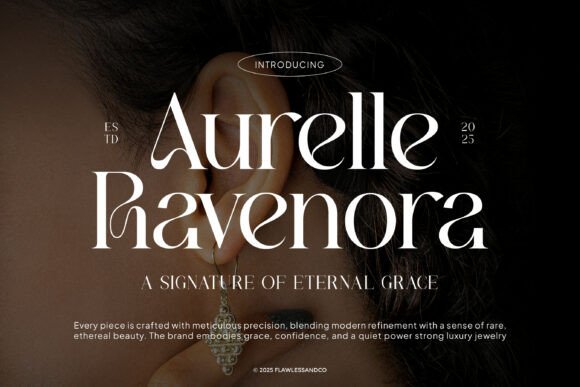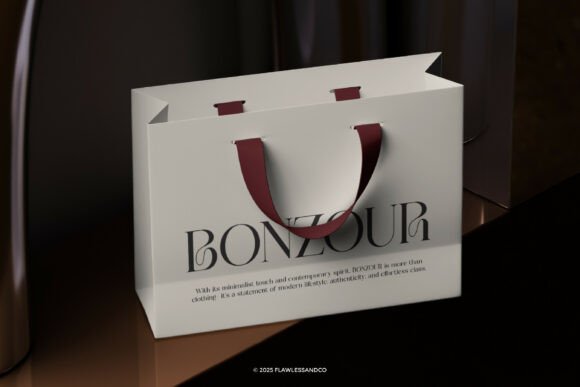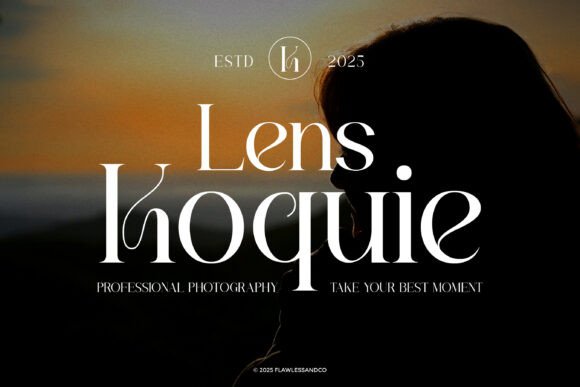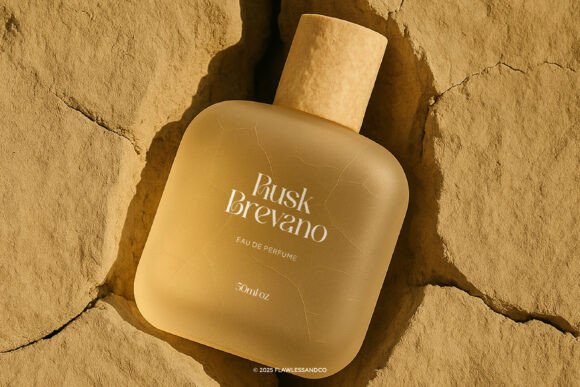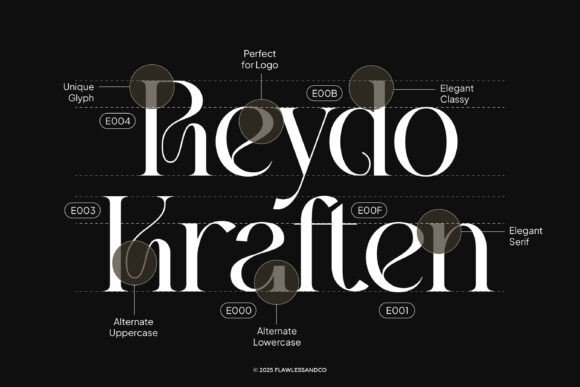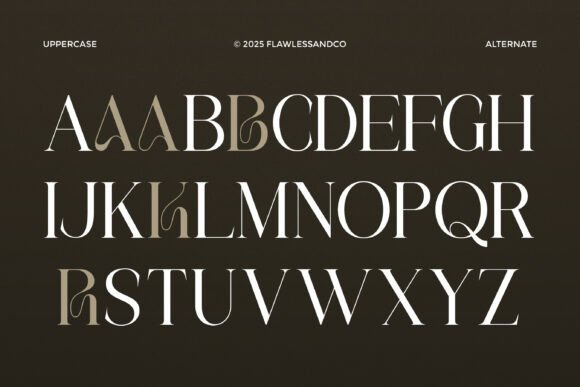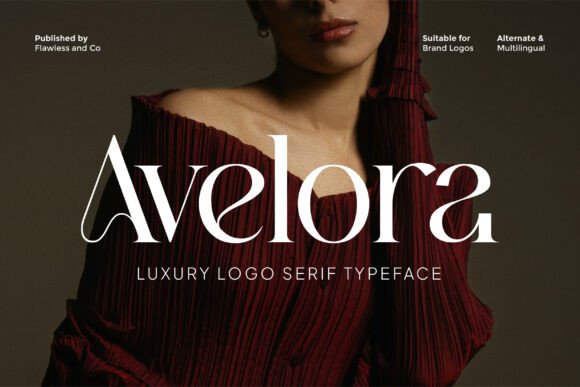
Introducing Avelora Font: Elevate Your Design with Elegance and Sophistication
In the world of typography, a font can make or break the visual identity of a brand. For designers and crafters seeking to create premium branding and elegant logo identities, Avelora Font is an exceptional choice. This refined serif typeface is specifically designed to bring a touch of sophistication and luxury to various design projects. With its graceful curves, high-contrast strokes, and modern aesthetic, Avelora is poised to elevate fashion branding, beauty products, editorial layouts, packaging, and wedding designs.
The Characteristics of Avelora Font
Avelora Font boasts a range of characteristics that set it apart from other typefaces. Its refined serif design ensures a level of elegance and poise, perfect for brands seeking to convey a sense of luxury and sophistication. The high-contrast strokes add a touch of drama and flair, while the modern luxury aesthetic ensures that the font remains contemporary and relevant.
One of the standout features of Avelora is its versatility. This font can be used across a range of design applications, from fashion branding and beauty products to editorial layouts and packaging. Whether you’re creating a logo, heading, or body text, Avelora brings a level of sophistication and elegance that is hard to match.
Use Avelora to Elevate Fashion Branding
In the world of fashion, visual identity is everything. Avelora Font provides designers with the perfect tool to create stunning branding that exudes luxury and sophistication. From high-end fashion labels to boutique clothing stores, Avelora’s refined serif design and modern aesthetic make it an ideal choice for fashion branding.
With Avelora, designers can create eye-catching logos, elegant packaging, and sophisticated advertising materials that capture the essence of their brand. Whether you’re looking to create a bold statement or a subtle impression, Avelora Font provides the perfect solution.
Bringing Beauty to Beauty Products
The beauty industry is all about aesthetics, and Avelora Font provides the perfect way to bring a touch of elegance and sophistication to beauty product branding. From skincare and cosmetics to haircare and fragrances, Avelora’s refined serif design and high-contrast strokes make it an ideal choice for beauty product packaging, labeling, and advertising.
With Avelora, designers can create stunning visual identities that capture the essence of their brand and product. Whether you’re looking to convey a sense of luxury, natural ingredients, or innovative technology, Avelora Font provides the perfect solution.
Elegant Editorial Layouts with Avelora
Avelora Font is not just limited to branding and packaging; it’s also perfect for editorial layouts. Whether you’re creating a magazine, newspaper, or online publication, Avelora’s refined serif design and modern aesthetic make it an ideal choice for headings, subheadings, and body text.
With Avelora, designers can create elegant and sophisticated editorial layouts that engage readers and convey a sense of luxury and sophistication. Whether you’re looking to create a high-end fashion magazine or a lifestyle publication, Avelora Font provides the perfect solution.
Wedding Designs and Beyond
Avelora Font is not just limited to commercial design applications; it’s also perfect for wedding designs and other personal projects. Whether you’re creating wedding invitations, stationery, or signage, Avelora’s refined serif design and elegant aesthetic make it an ideal choice.
With Avelora, designers can create stunning wedding designs that capture the essence of the special day. Whether you’re looking to convey a sense of romance, luxury, or sophistication, Avelora Font provides the perfect solution.
Author Flawless And Co
In conclusion, Avelora Font is an exceptional choice for designers and crafters seeking to create premium branding and elegant logo identities. With its refined serif design, high-contrast strokes, and modern luxury aesthetic, Avelora brings a sophisticated presence to every project. Whether you’re working on fashion branding, beauty products, editorial layouts, packaging, or wedding designs, Avelora Font provides the perfect solution.